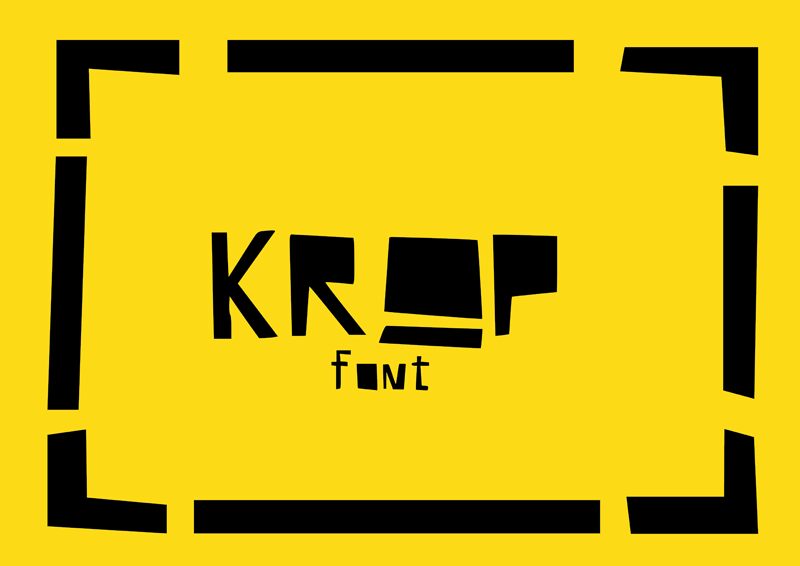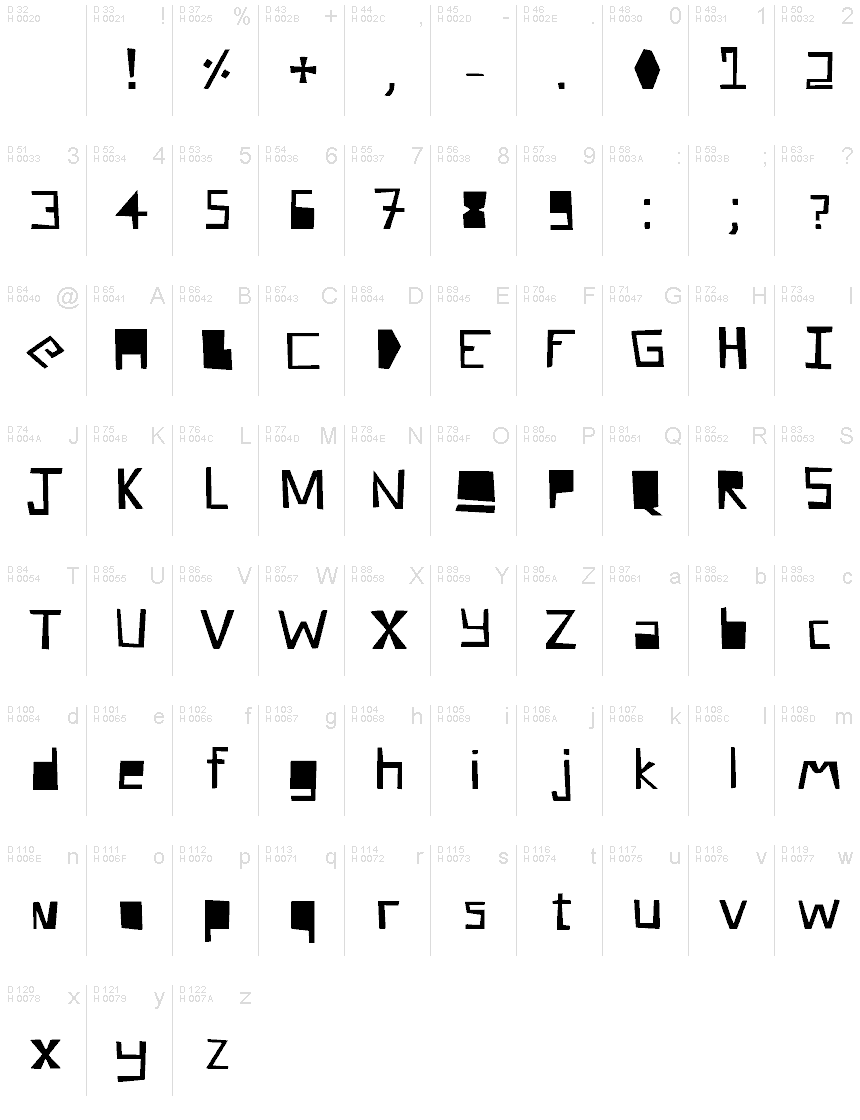
Krop Regular
Krop font by Giovana Kumschlies is a geometric display typeface at its finest. This free stencil font is built with lines and curves in block shapes, resulting in its abstract and unconventional appearance. Its numerous small dots bring uniqueness to letterform, setting an identity to your typography.
Use Krop in modern logos, contemporarily-themed posters & apparel items as well as album covers. It can also be used on editorial designs, invitations & greeting cards, or more commercial projects such as package designs & websites.